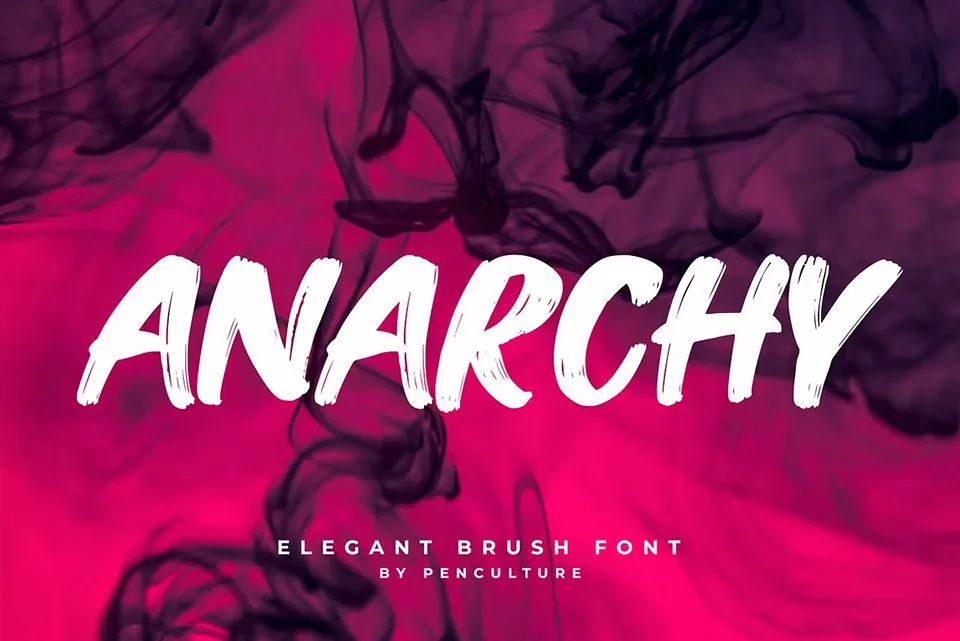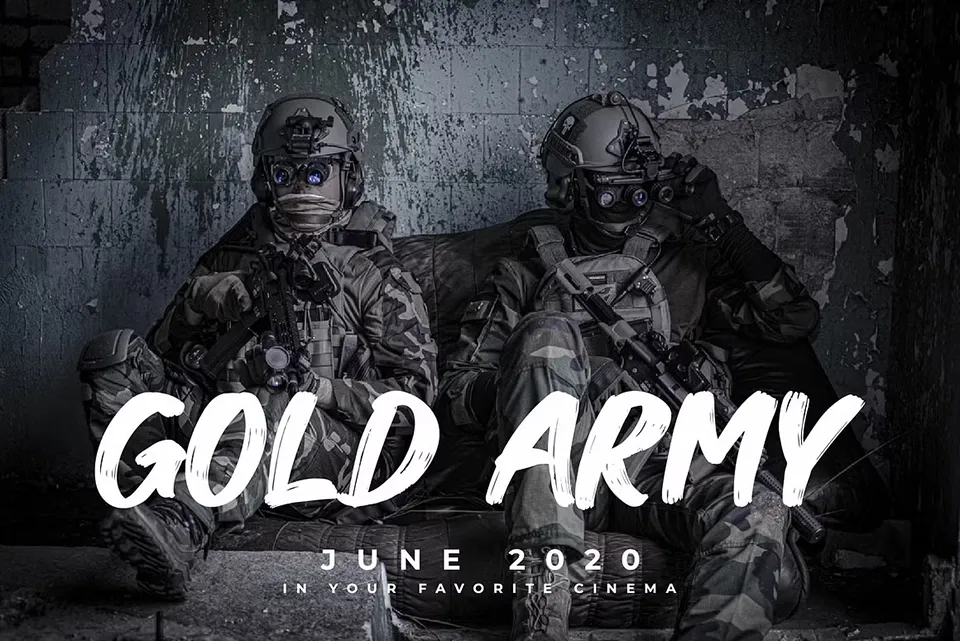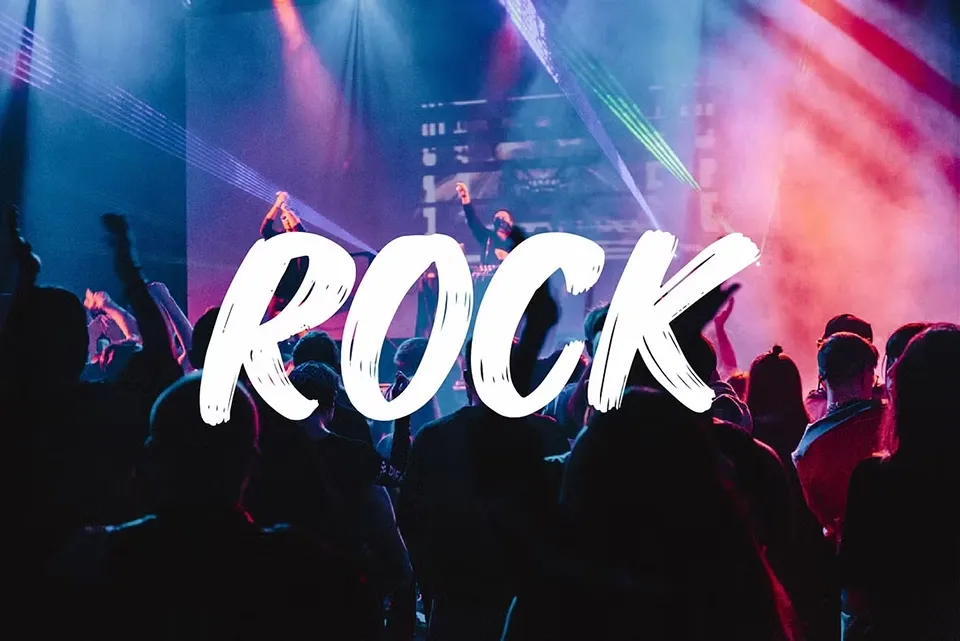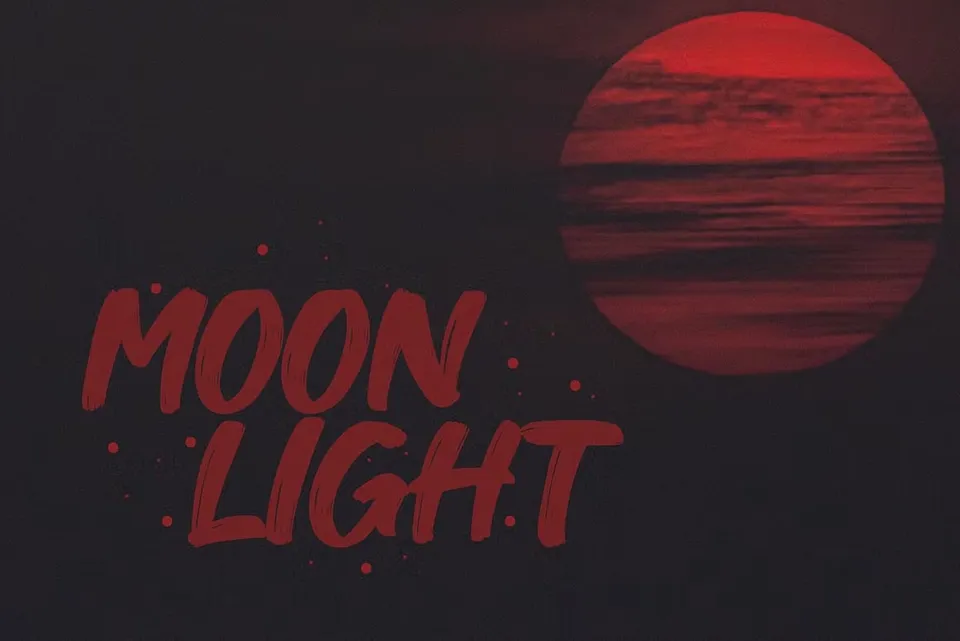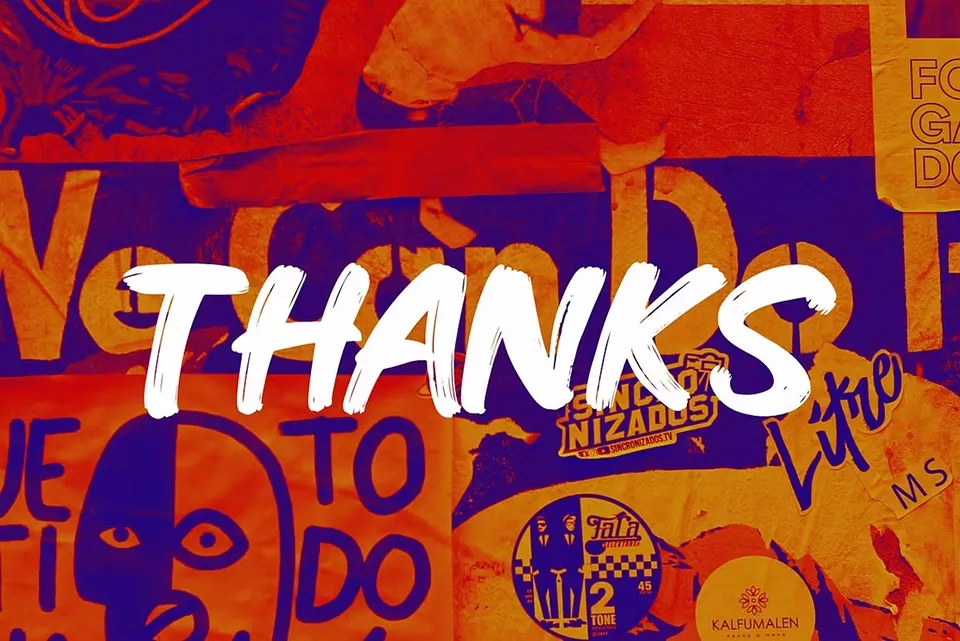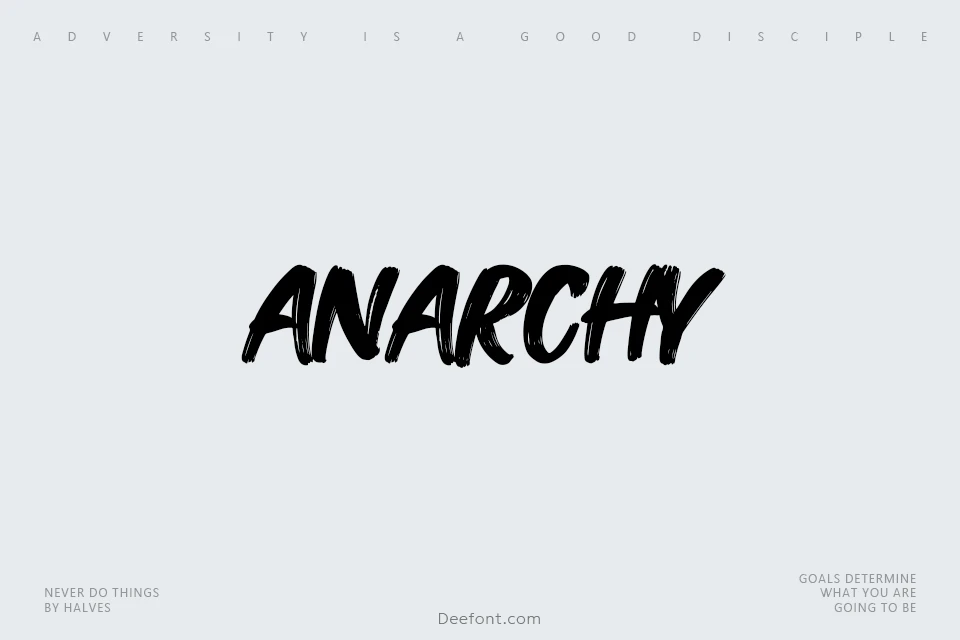
Anarchy Font
Anarchy Font is a delicate, elegant, and flowing handwritten typeface designed by Pen Culture. Featuring bold, sophisticated brush strokes and extended characters, it stands out in logos, branding, packaging, and more. This masterfully crafted brush script blends raw energy with refined style, making it a must-have for designers seeking both impact and elegance in their creative work.